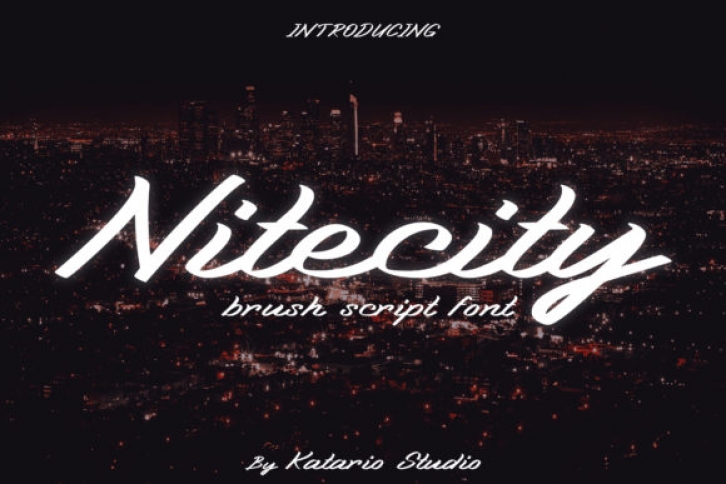
Nitecity is a bold and retro styled handwritten font. This font reads as strong, confident, and dynamic and can add tons of nostalgic character to your designs.